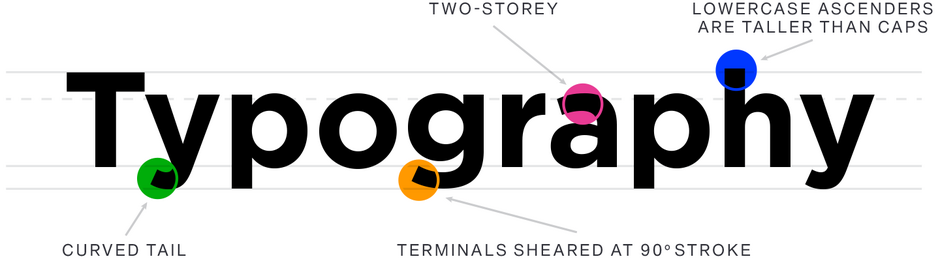
Gotham® Font Field Guide
BEST PRACTICES
Gotham’s unfussy directness and authority, especially in its heavier weights, create a brawny mien, while lighter weights are elegant and stylish.
FAMILY
The Gotham family has 140 styles and package options.
FONT FACTS
- First designed in 2000 for GQ magazine, and was released for public use in 2002.
- Gotham is named after Batman’s comic book city.
ROOTS
Gotham’s typographic roots are in 20th-century architectural signage commonly found in New York City. The geometric signage on the front door of the New York Port Authority served as an inspiration for the design.
LEGIBILITY
The two-story lowercase a, open apertures, and generous counters promote legibility in both display sizes and textual content.